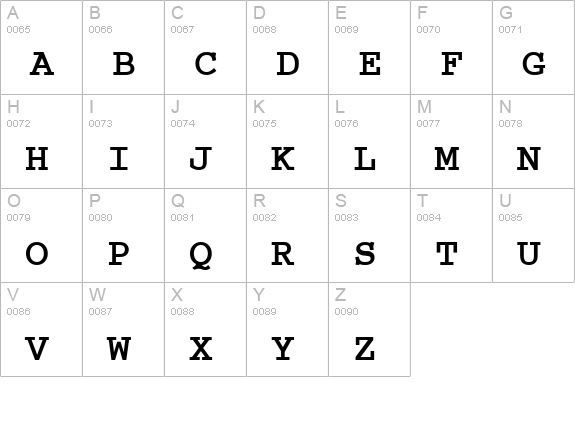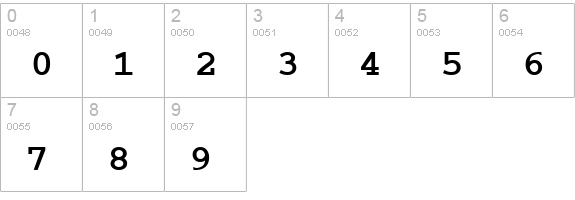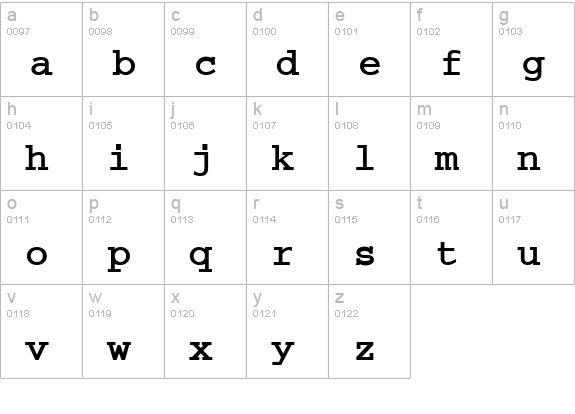
Countdown Font Details
The Countdown font is a stylish and modern typeface that is perfect for adding a sleek and contemporary touch to your designs. Its bold and eye-catching appearance makes it ideal for headlines, posters, and other display purposes. The Countdown font is available for free download at FontsMarket.com, where you can easily access this versatile and dynamic font to enhance your projects. With its clean lines and distinctive look, Countdown is sure to make a statement and capture the attention of your audience. Get creative and elevate your designs with this fabulous font that is both impactful and freely available for your use.